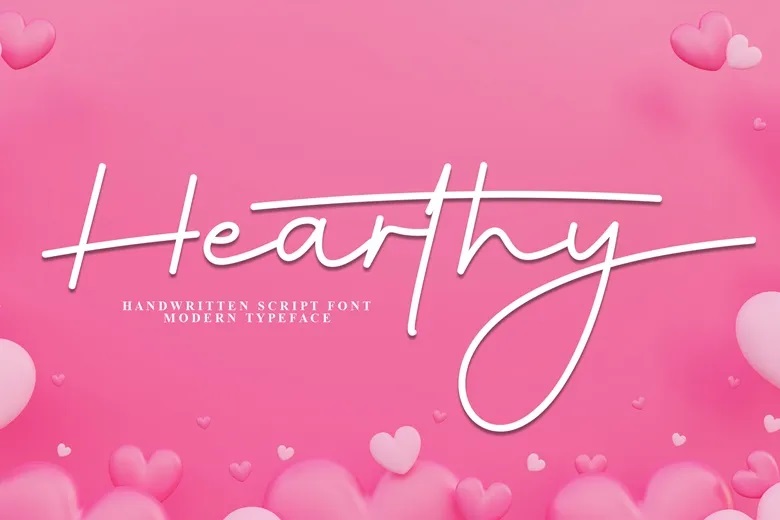
Hearthy Font
Hearthy Font is graceful, flowing, and full of charm. It’s perfect for adding a personal, handwritten touch to any design. With smooth curves and elegant strokes, it works well for wedding invitations, logos, branding, greeting cards, and social media posts. Whether you want a romantic, chic, or stylish look, this script brings effortless beauty and sophistication.
Hearthy Handwritten Script Font